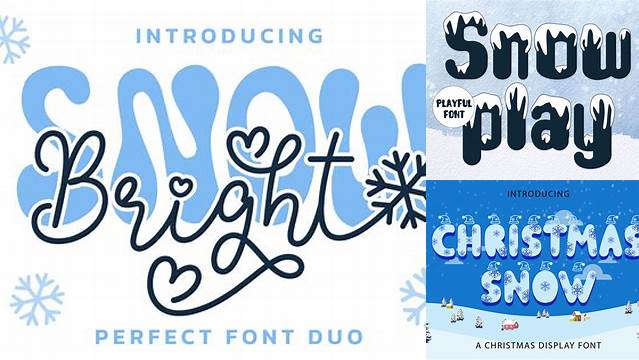
Snow Bright Font: Free Download & Design Guide
Unveiling the Charm of Snow Bright Font: A Designer's Delight
Hey there, fellow design enthusiasts! Are you on the hunt for a font that's both captivating and free? Well, look no further because Snow Bright is here to sprinkle some magic onto your projects. This font is a true gem, offering a perfect blend of elegance and playfulness that can elevate any design. Whether you're crafting a stunning website, designing eye-catching social media graphics, or creating beautiful print materials, Snow Bright is a versatile choice that's sure to impress. The beauty of Snow Bright lies in its intricate details and graceful curves. It's a font that exudes a sense of warmth and approachability, making it ideal for projects that aim to connect with their audience on a personal level. Think about it: a friendly greeting card, a welcoming website header, or even a charming logo – Snow Bright can bring these ideas to life with its unique character. The font family typically includes a range of weights and styles, providing you with the flexibility to tailor your designs to your specific needs. You might find regular, bold, and italic versions, each offering a slightly different flavor but all sharing the same core aesthetic.
Snow Bright Font: Perfect for Diverse Design Projects
Alright, let's dive into some practical applications. Where can you actually use this fantastic Snow Bright font? The answer is: almost everywhere! The font's versatility makes it a great fit for a variety of projects. Firstly, consider the realm of branding. If you're working on a logo, Snow Bright can add a touch of sophistication and approachability that really resonates with people. Its unique character can make your brand instantly recognizable and memorable. Think of a cafe logo, a boutique shop's identity, or even a personal brand for a creative professional. Snow Bright adds that elegant touch to your logo. This font works really well for creating visually appealing social media content, which is great if you are trying to improve your engagement with your audience. Whether it’s Instagram posts, Facebook banners, or Pinterest graphics, Snow Bright can help you create eye-catching visuals that stand out from the crowd. It’s perfect for adding text overlays to images, creating quotes, or even designing full-fledged social media campaigns.
Furthermore, Snow Bright is a wonderful choice for web design. If you're building a website, think about using Snow Bright for headings, subheadings, or even short blocks of text. The font’s readability and unique style can make your website more engaging and user-friendly. It can help you create a visually appealing website. Keep in mind that you need to choose the right font to make your website appealing to your visitors. Many times designers spend a lot of time picking fonts for their websites to make sure they look good. Don't underestimate the impact of the font choices. This applies even to print materials. From brochures and flyers to posters and invitations, Snow Bright can add a touch of elegance and charm to your printed designs. Whether you're promoting an event, announcing a new product, or simply creating a beautiful piece of art, Snow Bright can help you make a lasting impression. Snow Bright is a wonderful font to use because it offers a beautiful and easy to read style. It is an easy choice, and can make your work stand out. To sum it up, Snow Bright is a versatile font that can elevate any design. So, whether you're a seasoned designer or just starting, consider adding Snow Bright to your font library. You will not be disappointed!